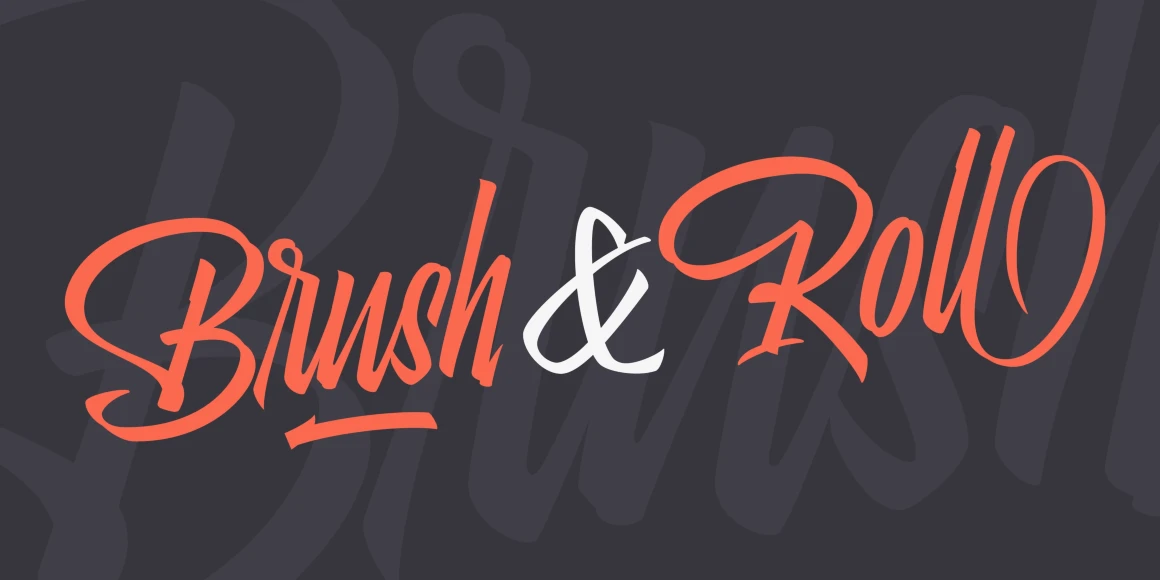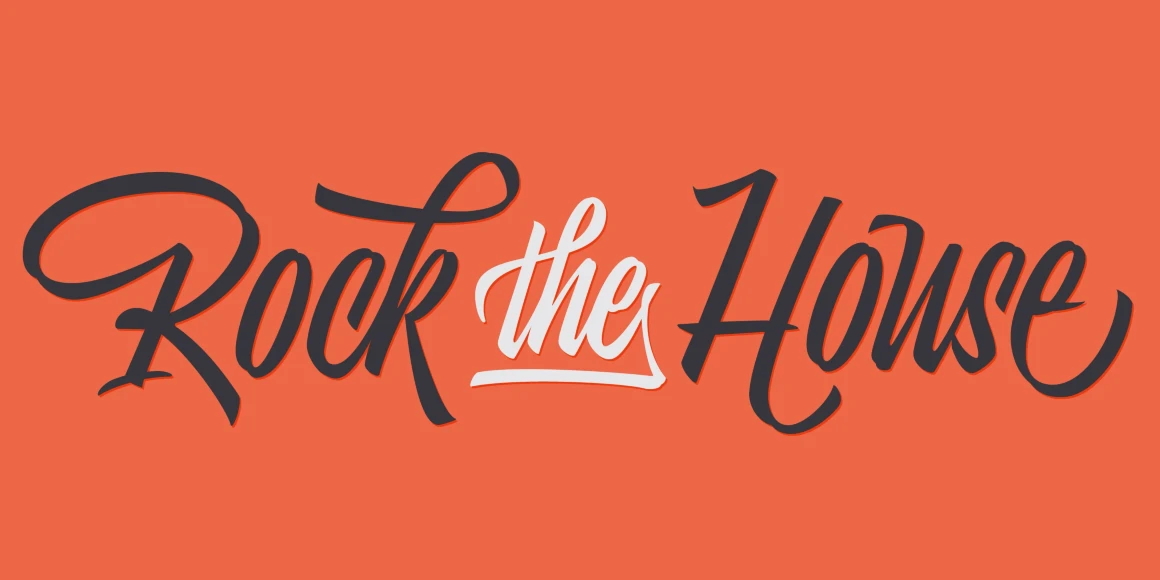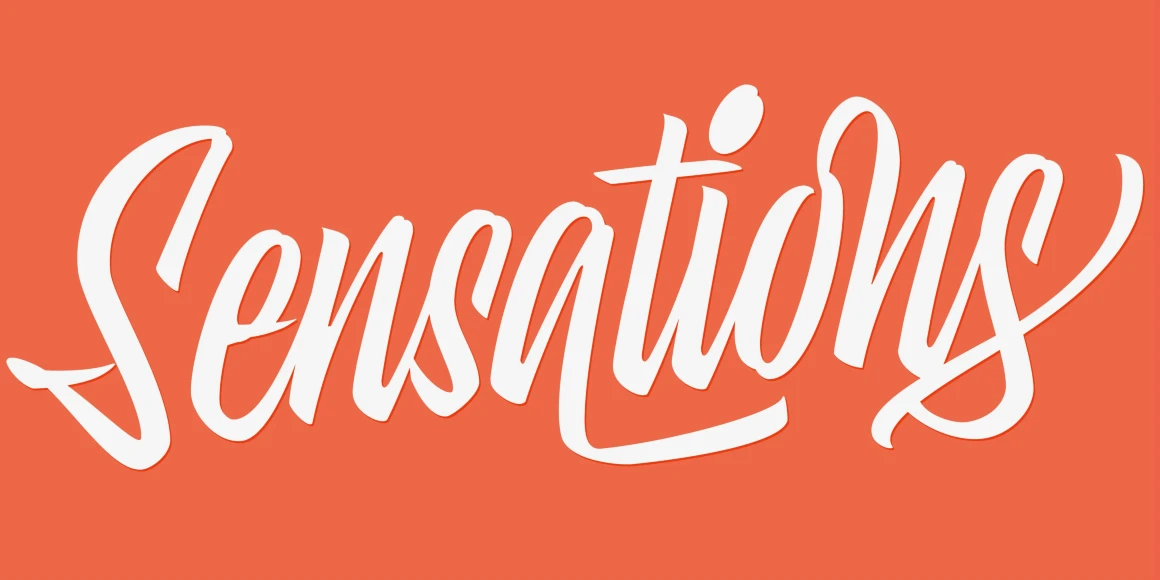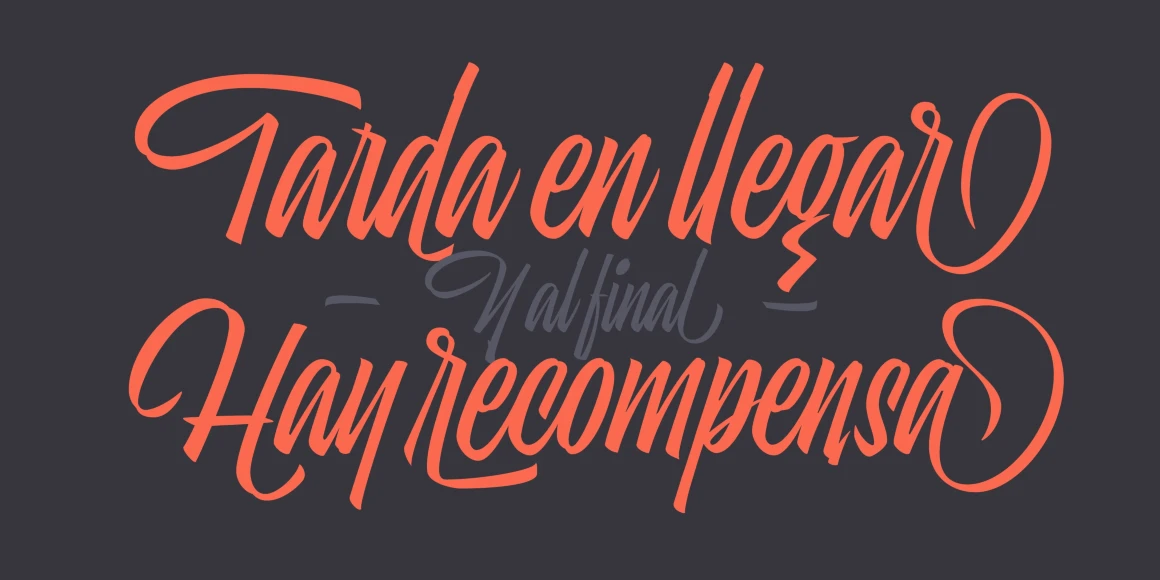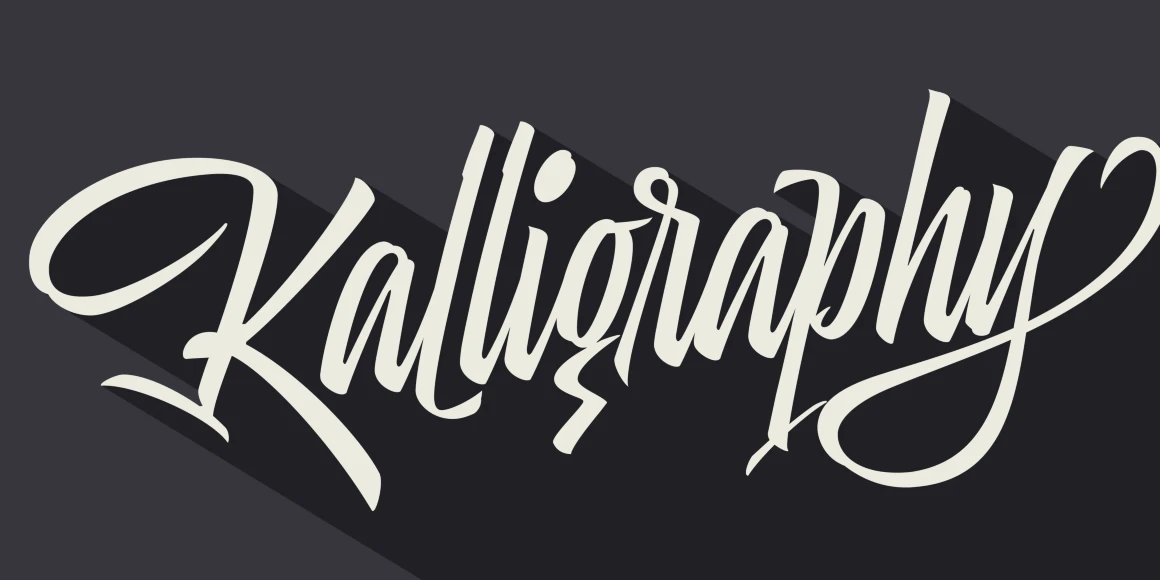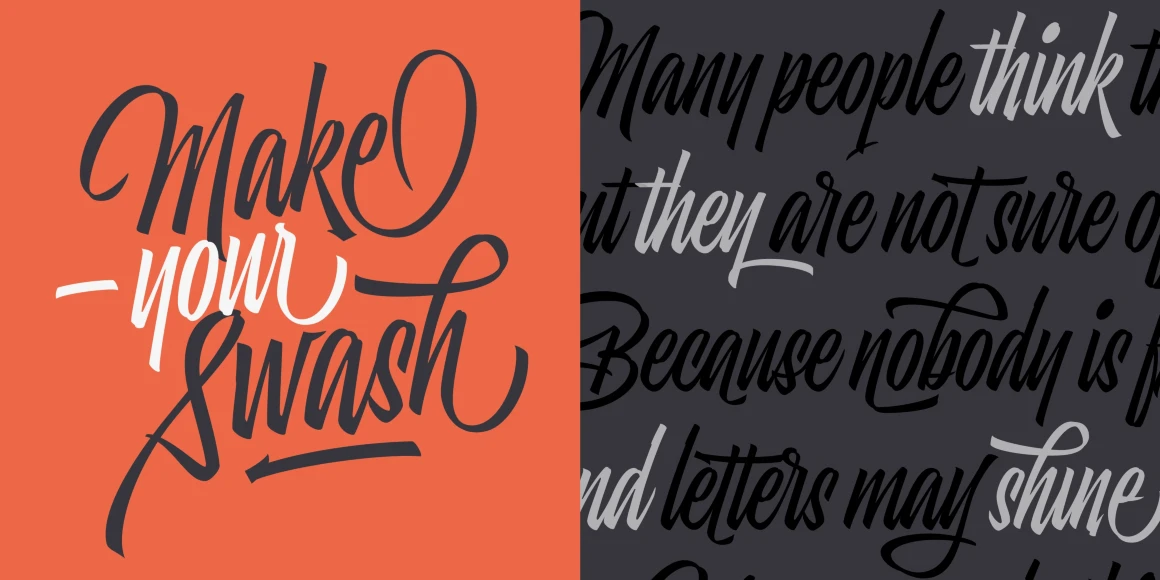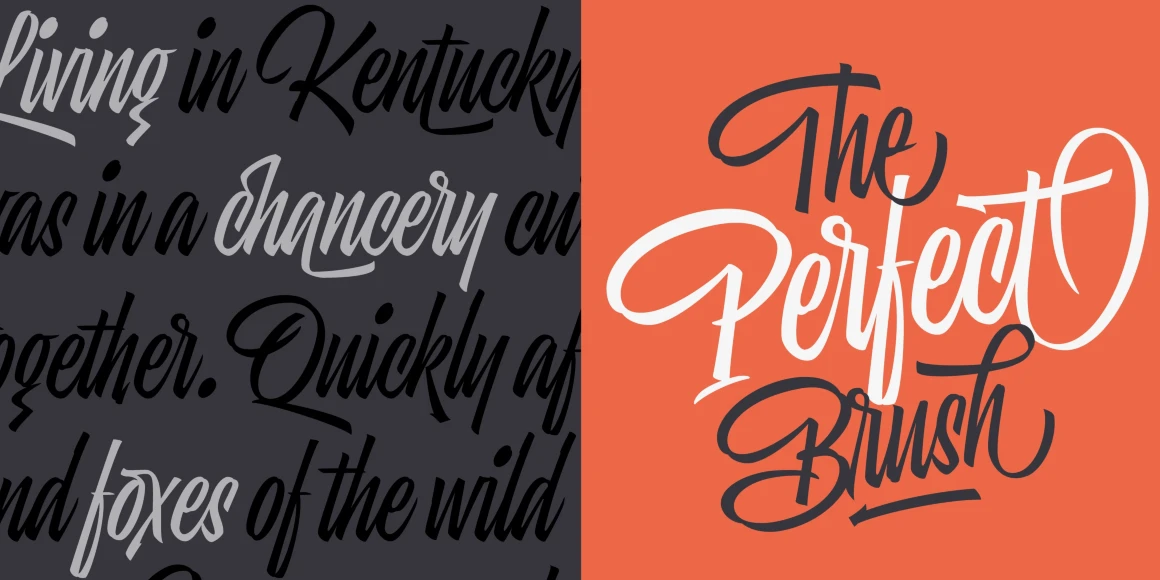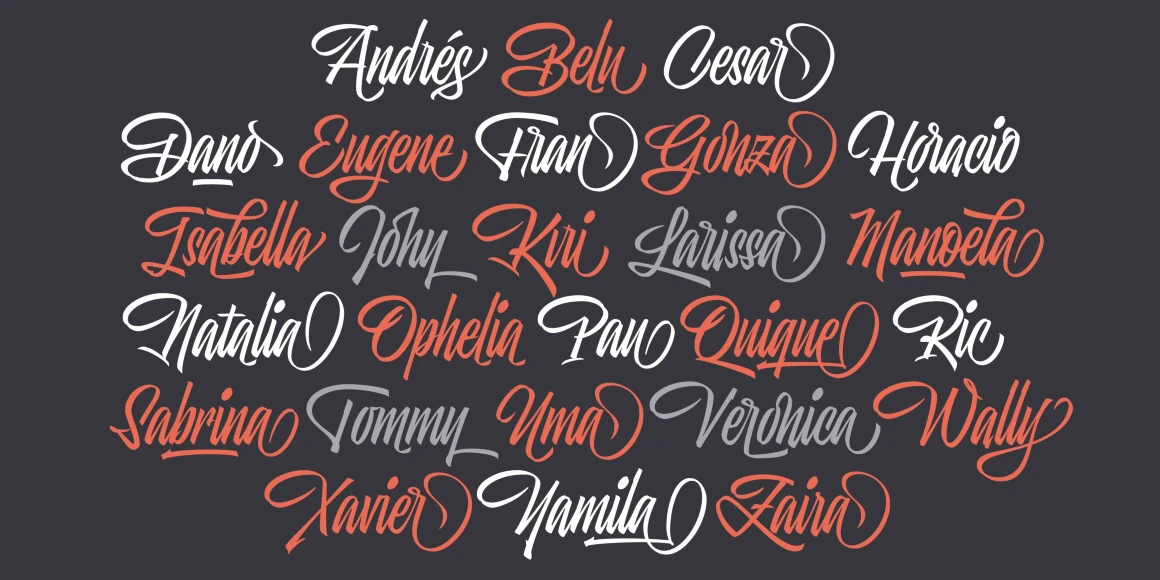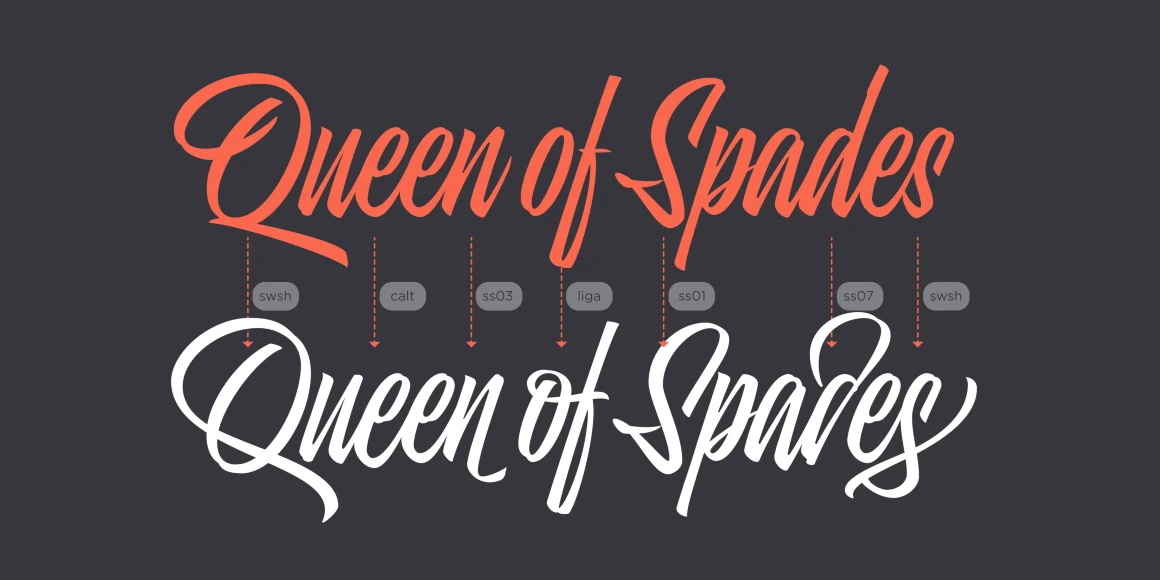
Skill
From Sproviero Type
Skill is a script bursting with energy, rhythm, and raw expression. Equal parts precision and chaos, its sweeping curves and sharp angles channel the movement and velocity of the pointed brush, and ample alternates and ligatures give your design a custom look. Designed to feel fast, fearless, and free, it brings an edge to everything from posters and book covers to skate decks, album art, and tattoos. Skill captures the thrill of the brush with every stroke — restless, loud, and full of life.
Stylistic Set 8
Stylistic Set 9
Stylistic Set 10
Stylistic Set 11
Titling
Initial Forms
Final Forms